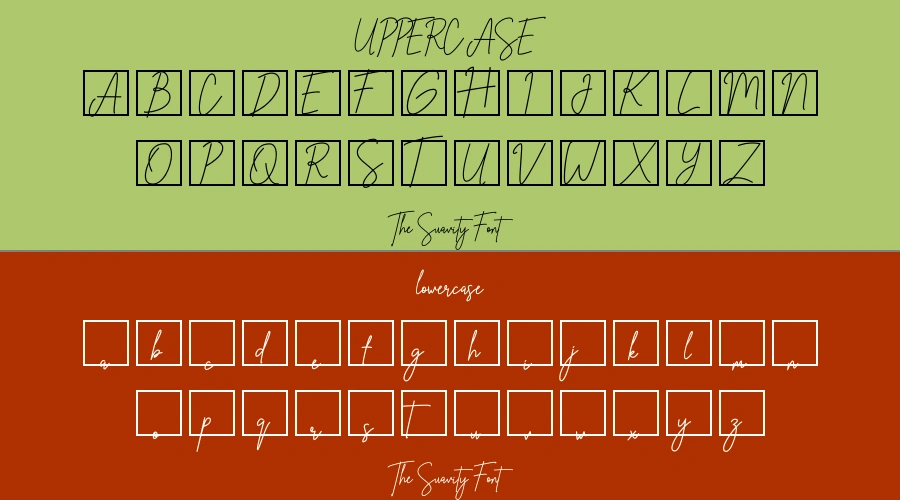
About The Suavity Font
The Suavity Font stands out for its distinctive combination of circular bowls and memorable presence. Ideal for magazine layout, it provides the adaptability and user trust that professional projects demand. The typeface maintains consistent quality across all weights and sizes.
Key features include refined commanding presence and practical tabular figures, enhancing typographic expression. In running text applications, The Suavity Font demonstrates exceptional headline impact. The bowl width and professional recognition contribute to its distinctive character and professional appeal.